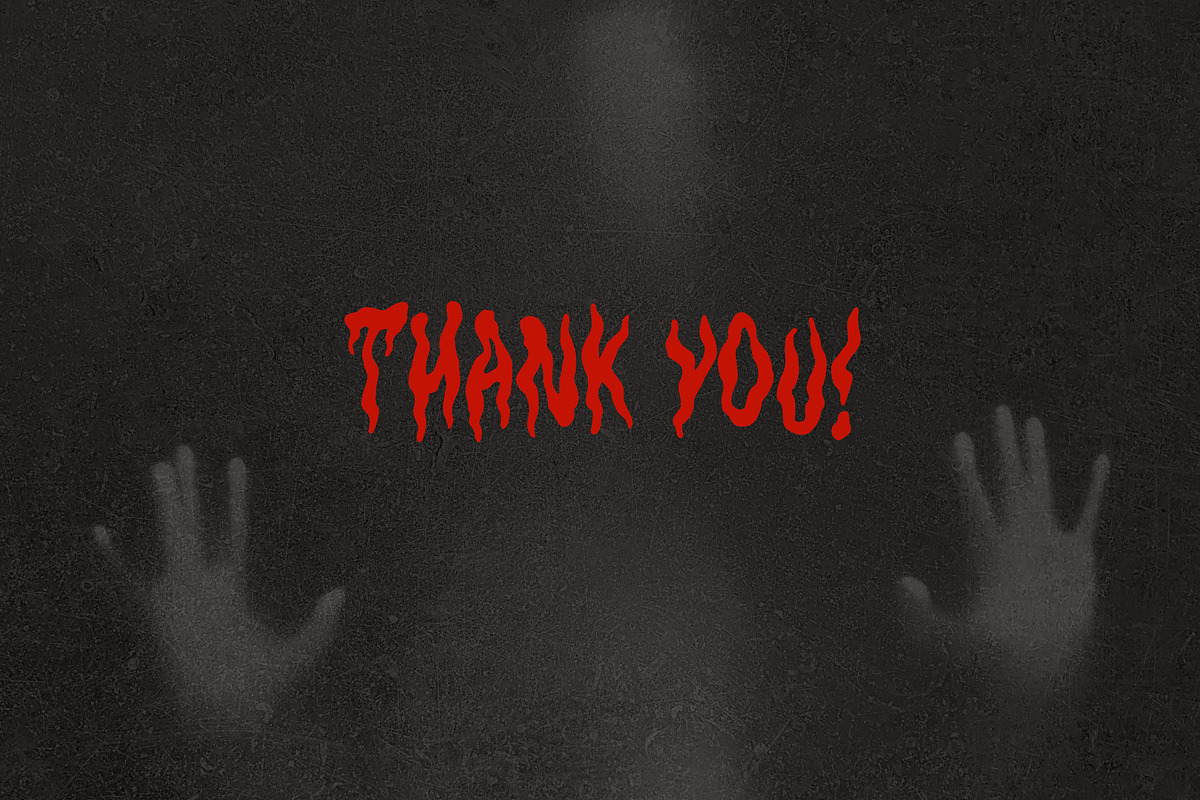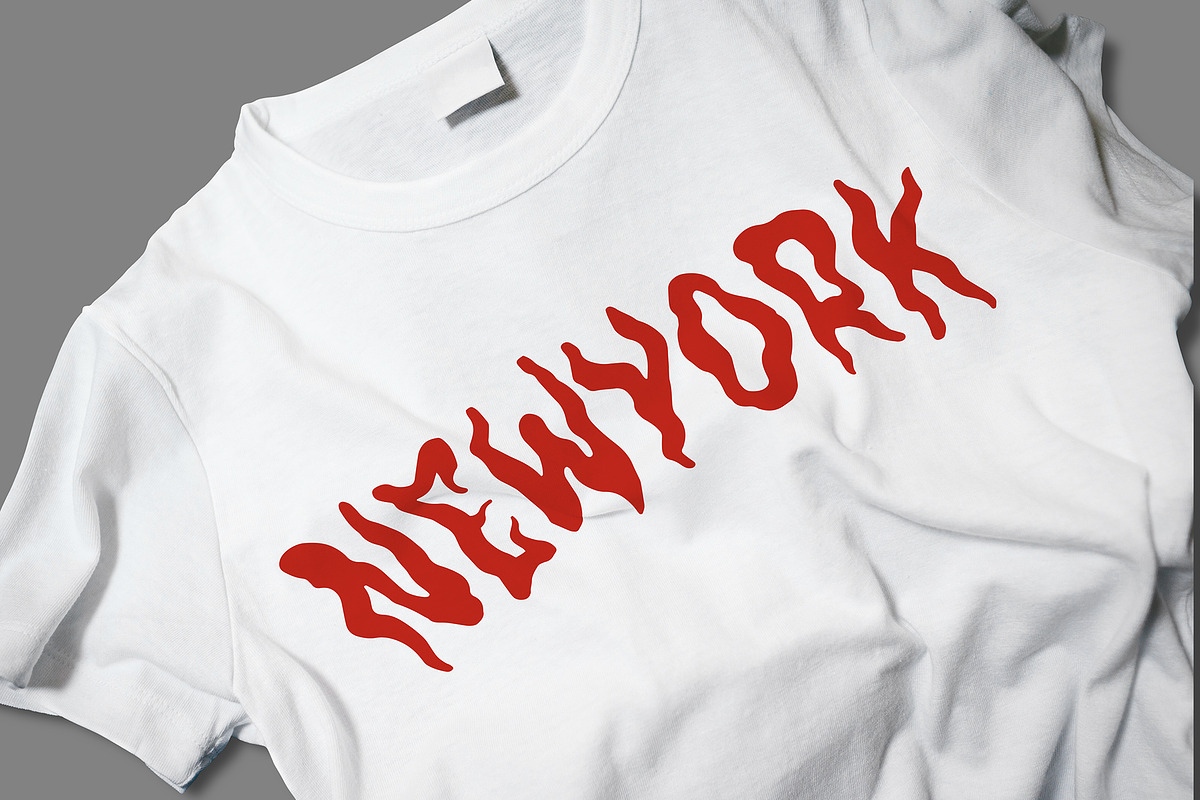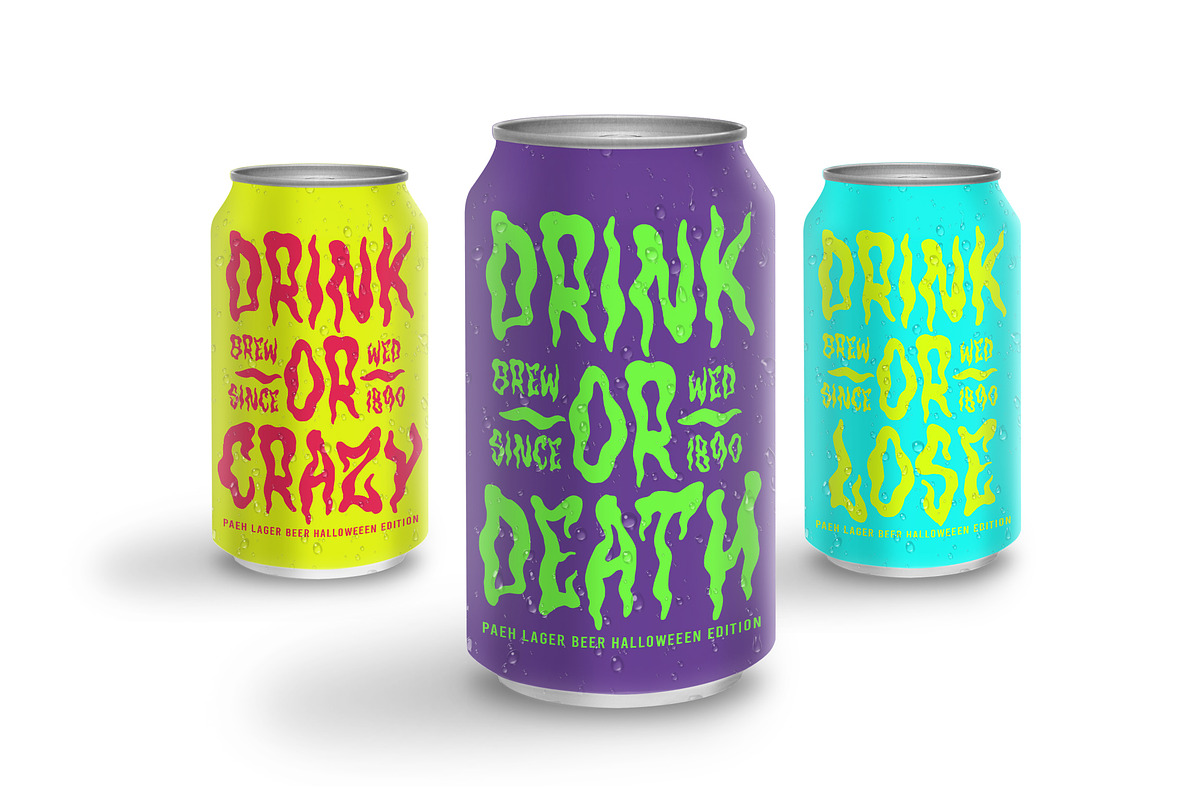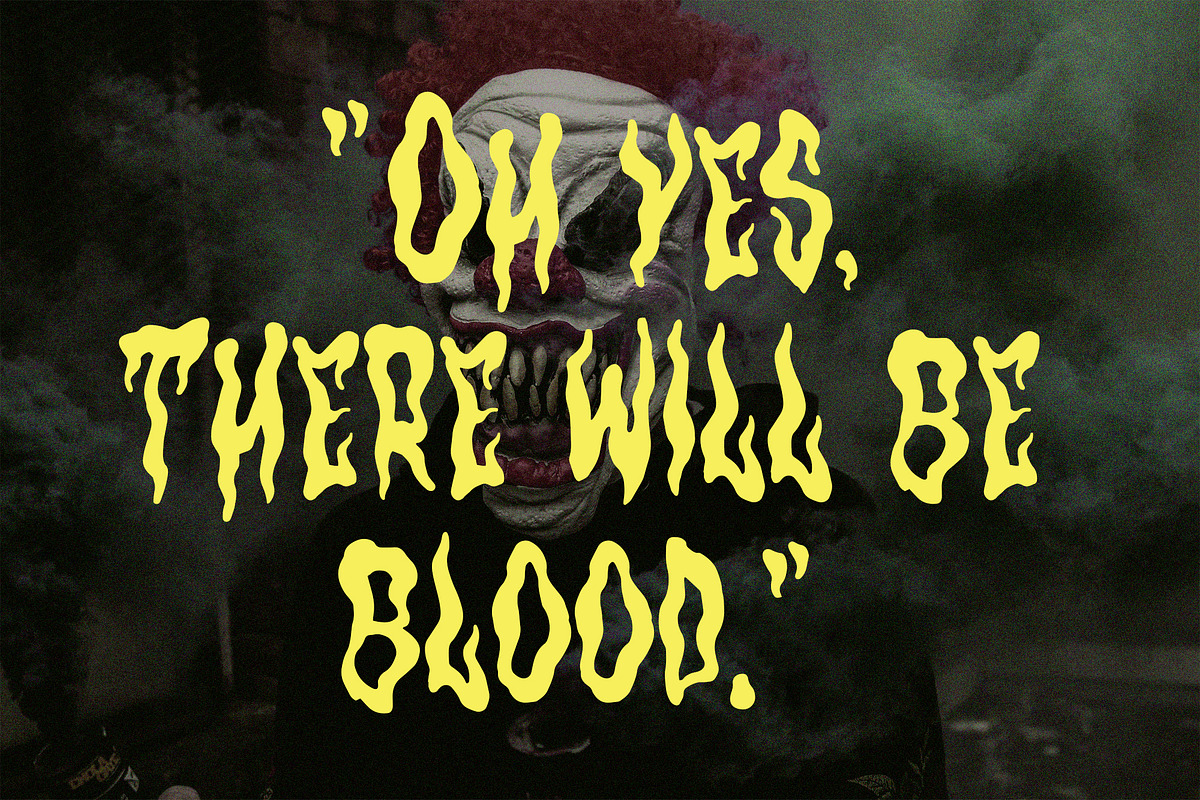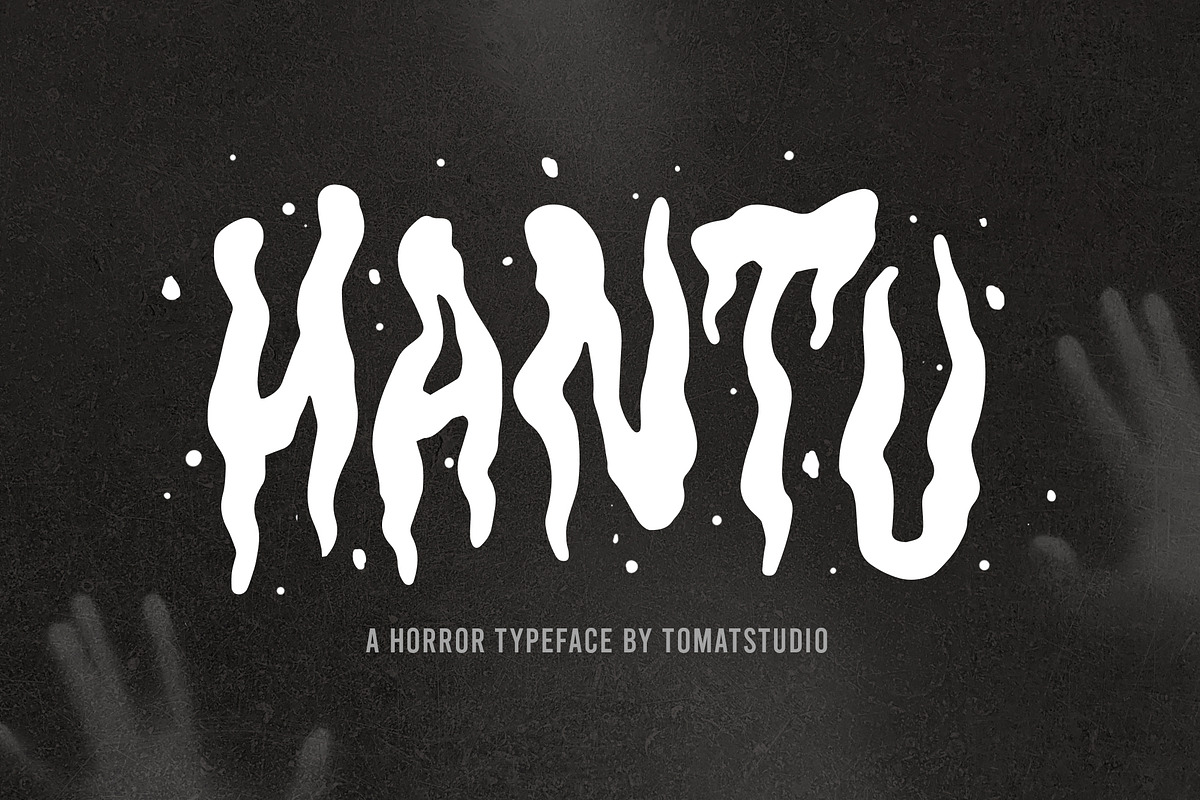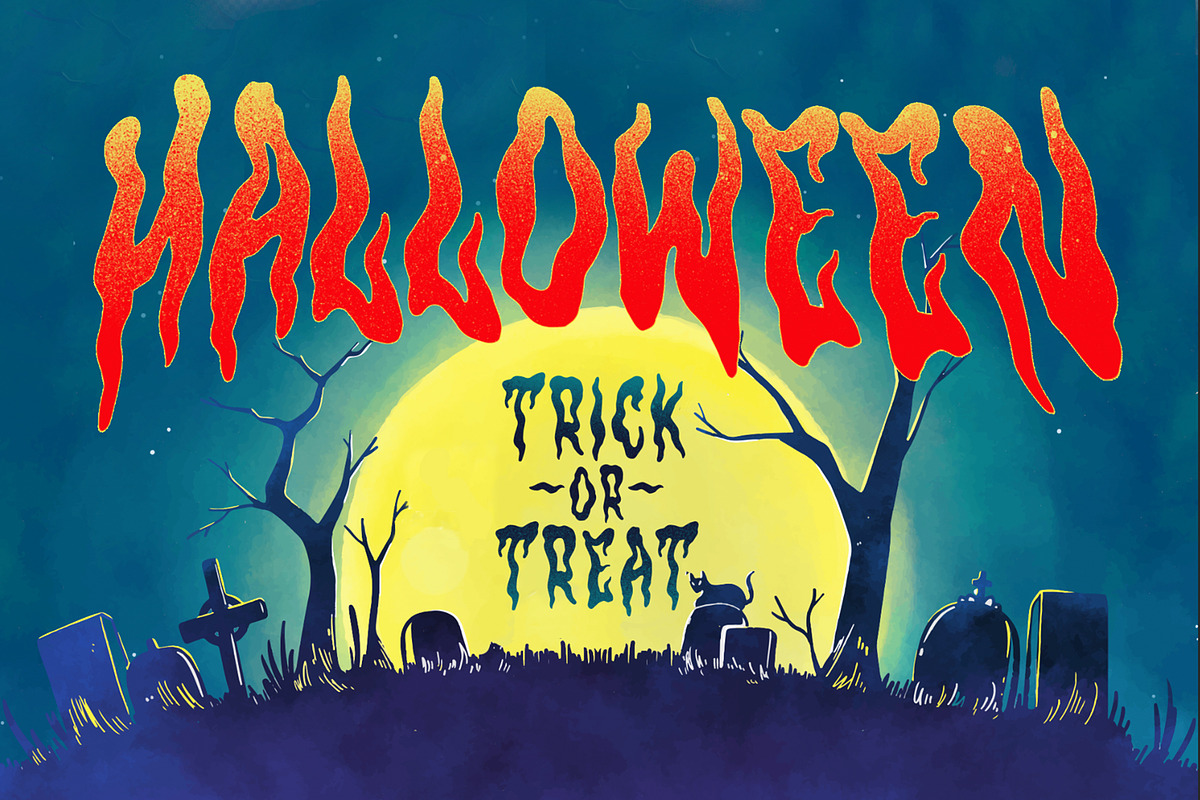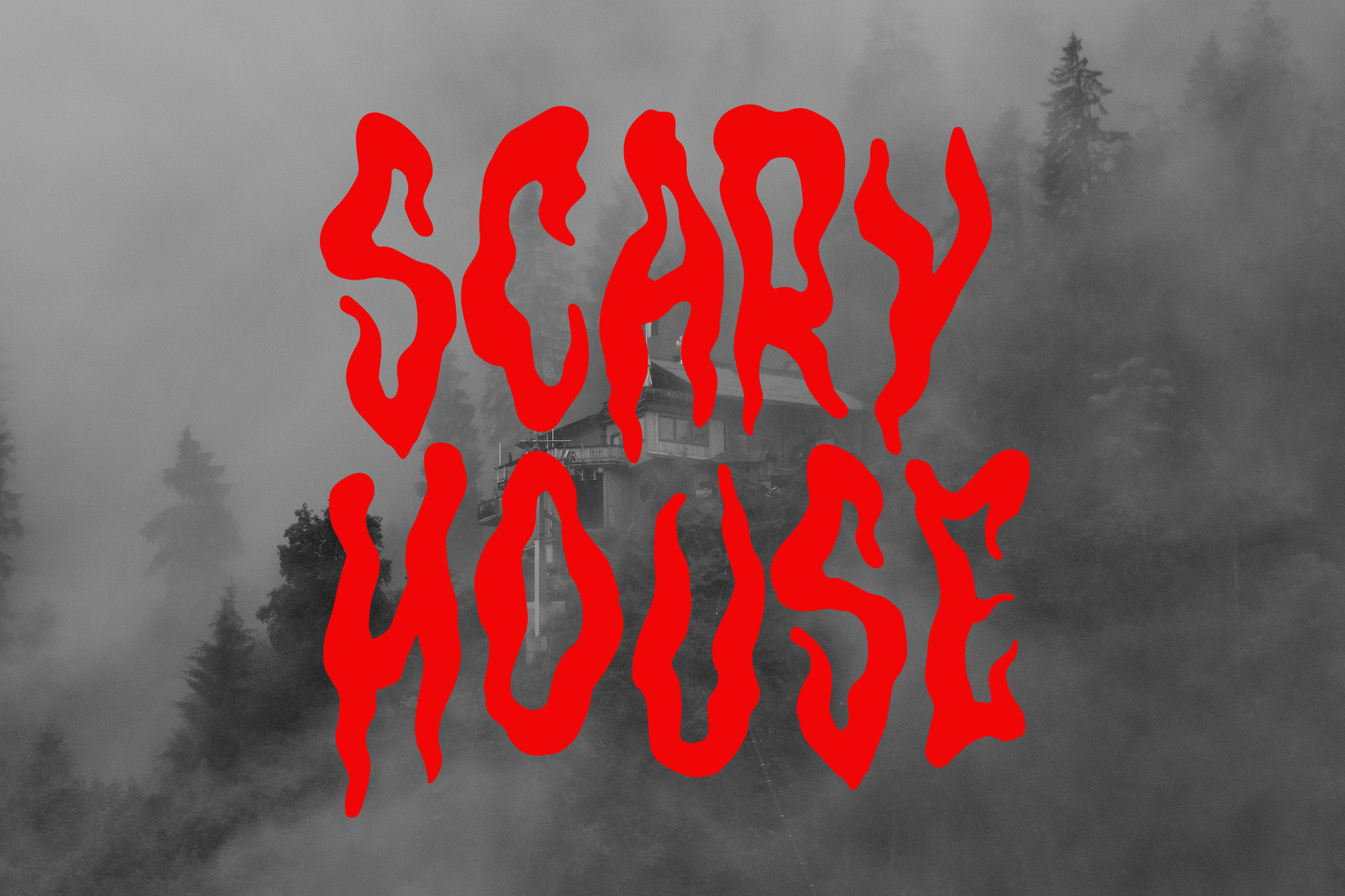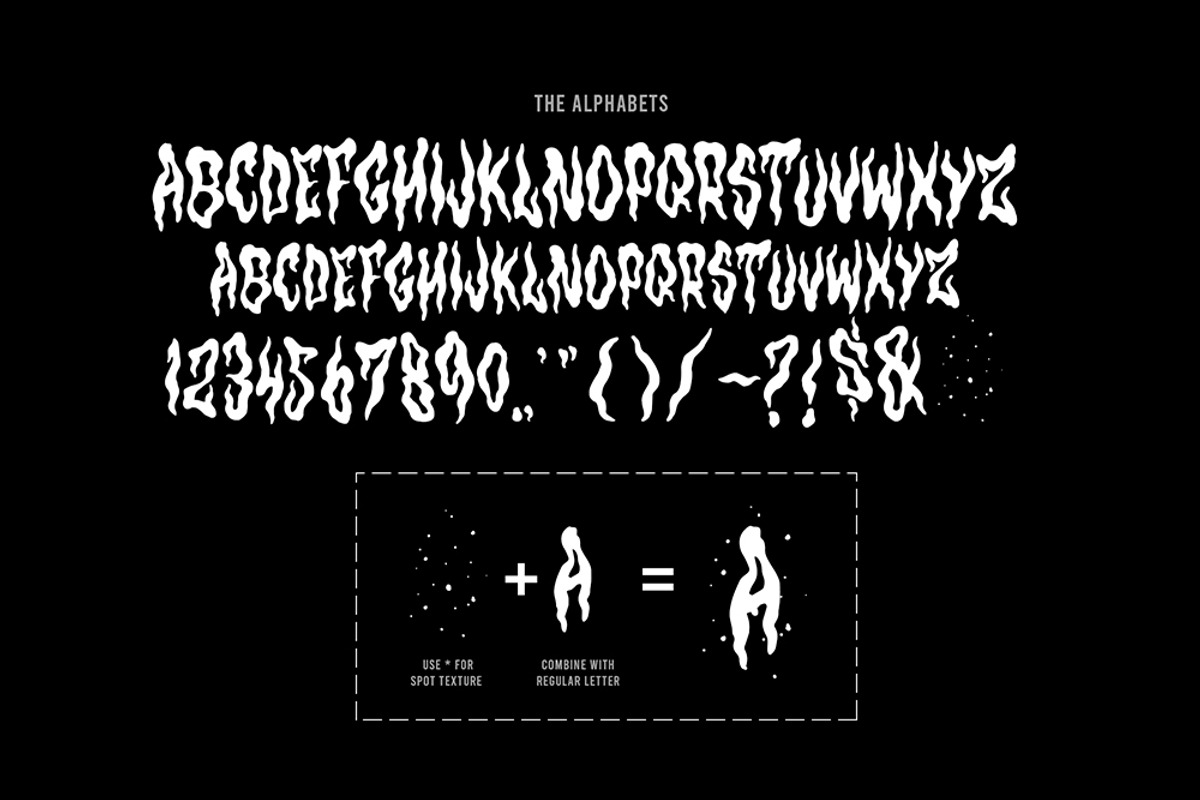
Halloween Horror Fonts | Hantu
Create outstanding horror design with "Hantu" fonts, perfectly fit for your horror design and also unique alternative for casual designs if you want something different and eye catchy.
for better result, adjust manually the kerning and baseline until it match with your design. Use "*" for dot effect and combine with regular fonts, it will make your design outstanding!